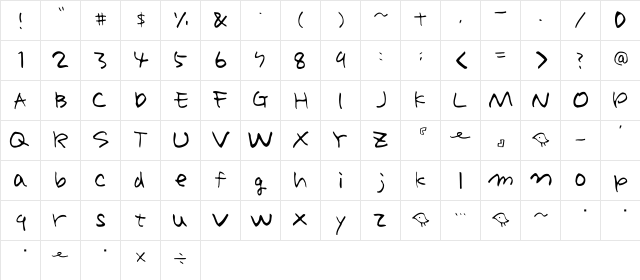
Holiday-MDJP03 Regular
Design Context for Holiday-MDJP03 Typeface
Holiday-MDJP03 is a composed and adaptable typeface that performs quietly and consistently across a wide range of design contexts.